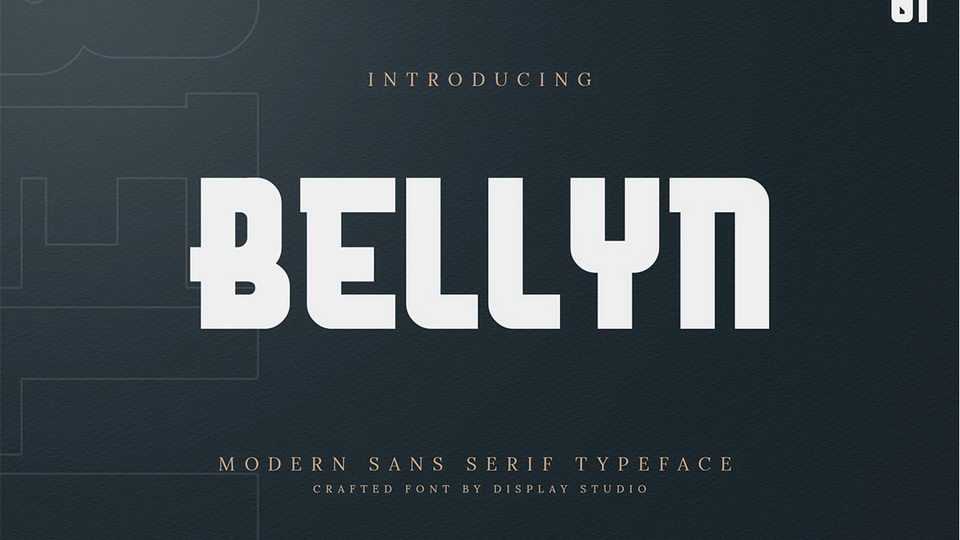
Download Bellyn font, a modern block sans serif typeface. Bellyn is perfect for brand logo, posters, headlines and even any kind of project.
Designer: Display Studio